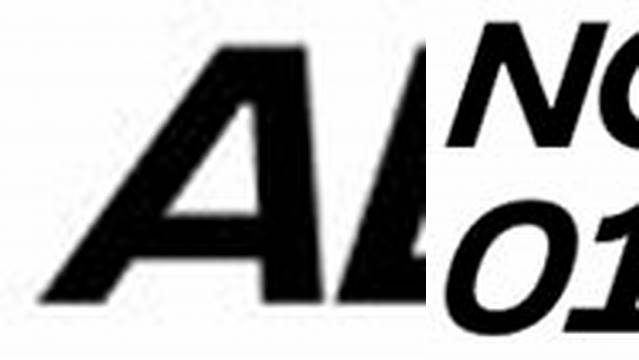
What is Integral CF Regular Oblique Font?
Before we get into the nitty-gritty of downloading, let’s talk about what makes the Integral CF Regular Oblique font so special. Integral CF Regular Oblique is a modern sans-serif typeface known for its clean lines, geometric structure, and slightly slanted (oblique) appearance. This font exudes a sense of sophistication and readability, making it a popular choice for various design projects.
Key Characteristics
- Sans-Serif Design: The absence of serifs (the little decorative strokes at the end of letters) gives it a contemporary and minimalist look.
- Geometric Structure: Built on precise geometric forms, the font offers a balanced and harmonious appearance.
- Oblique Style: The slanted design adds a touch of dynamism and visual interest, making it stand out from standard fonts.
- Excellent Readability: Despite its unique style, the font remains highly legible, ensuring it’s suitable for both headlines and body text.
Common Uses
- Logos and Branding: Its modern and clean aesthetic makes it perfect for creating strong and memorable brand identities. Companies looking to convey innovation and clarity often choose Integral CF Regular Oblique.
- Web Design: The font's readability and contemporary feel make it an excellent choice for website headers, navigation menus, and body text. It ensures a seamless user experience across various devices.
- Print Materials: From brochures and posters to business cards and magazines, this font adds a touch of elegance and professionalism to any print project. Its clean lines ensure clarity, even in smaller sizes.
- Digital Advertising: In the fast-paced world of digital ads, Integral CF Regular Oblique captures attention with its sleek design. It’s great for headlines, calls to action, and other key elements that need to stand out.
- Editorial Design: Its balanced appearance and readability make it suitable for long-form content in books, articles, and reports. It helps create a visually appealing and easy-to-read layout.
The versatility of Integral CF Regular Oblique is what makes it a favorite among designers. Whether you're working on a corporate identity, a website redesign, or a marketing campaign, this font can bring your vision to life with its unique blend of style and functionality.